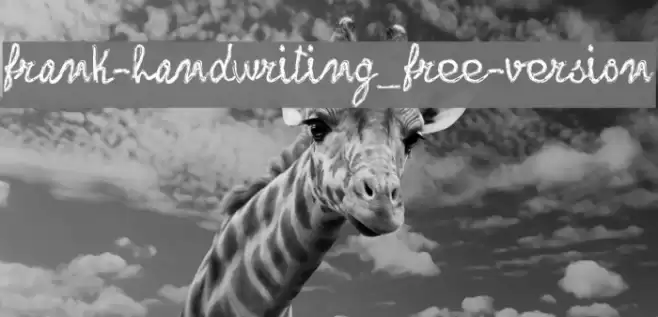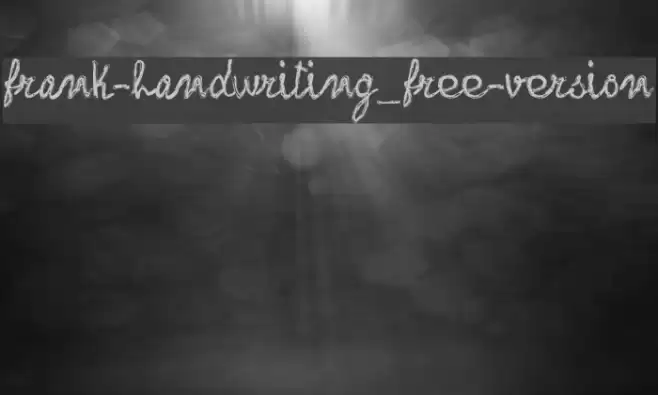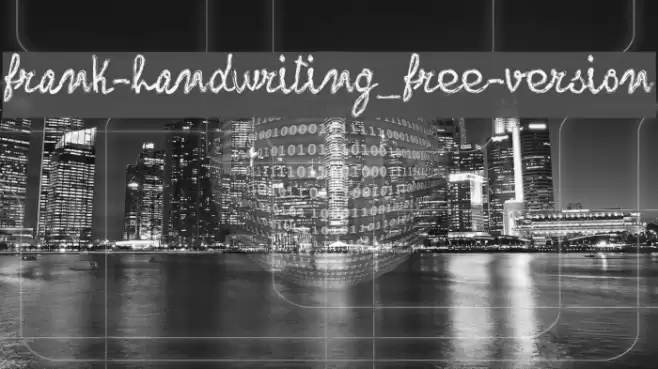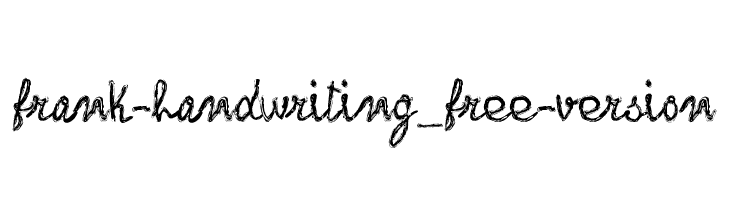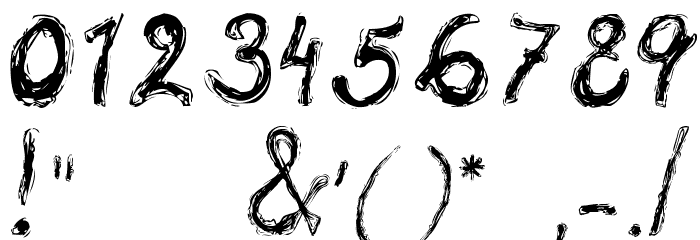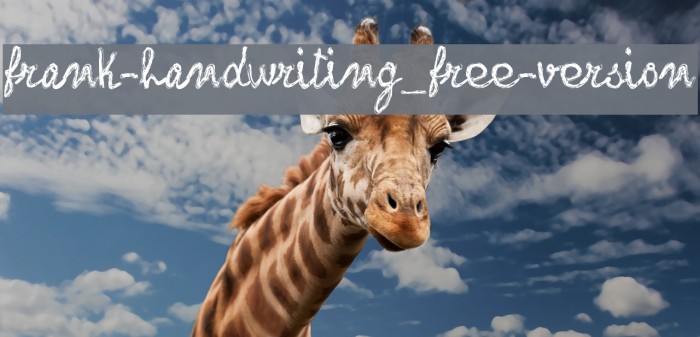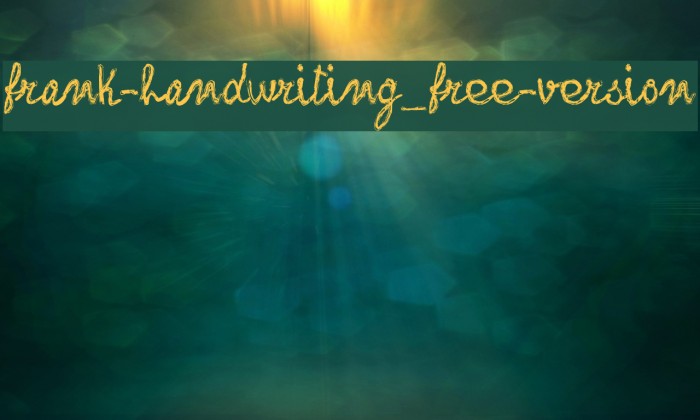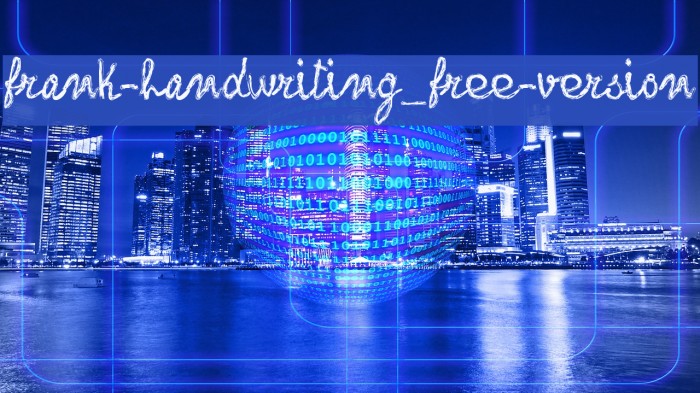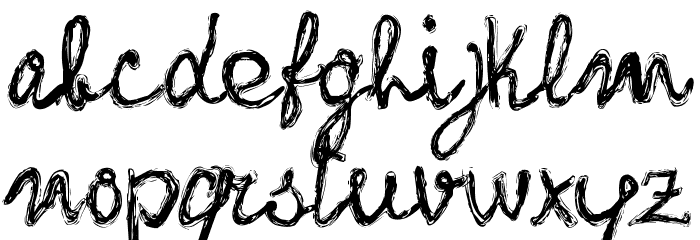
frank-handwriting_free-version Font
frank-handwriting_free-version Description
This font exhibits a dynamic and expressive handwritten style, characterized by its bold and irregular strokes that mimic the natural flow of handwriting. The letters are slightly slanted, with varying thicknesses that add a sense of movement and energy. The uppercase and lowercase letters are distinct, with some letters featuring loops and swirls that enhance its artistic flair. The numbers and special characters maintain the same lively aesthetic, making the font suitable for creative and informal applications. Its unique appearance is ideal for projects that require a personal touch or a sense of spontaneity.
A bold, expressive handwritten font with dynamic strokes and artistic flair from Uncategorized fonts.
- Proposed Projects: Ideal for greeting cards, invitations, artistic posters, and personal branding.
- Use Case: Logos, Headlines, Artistic projects